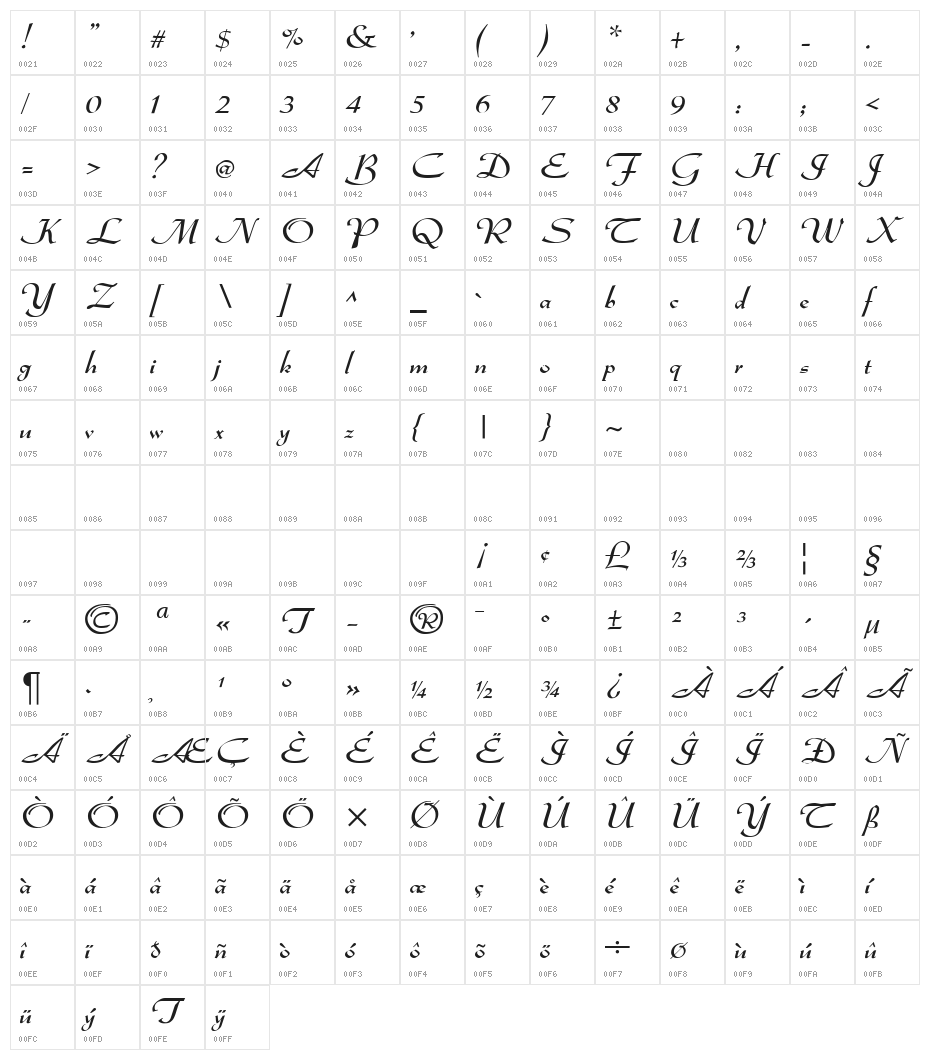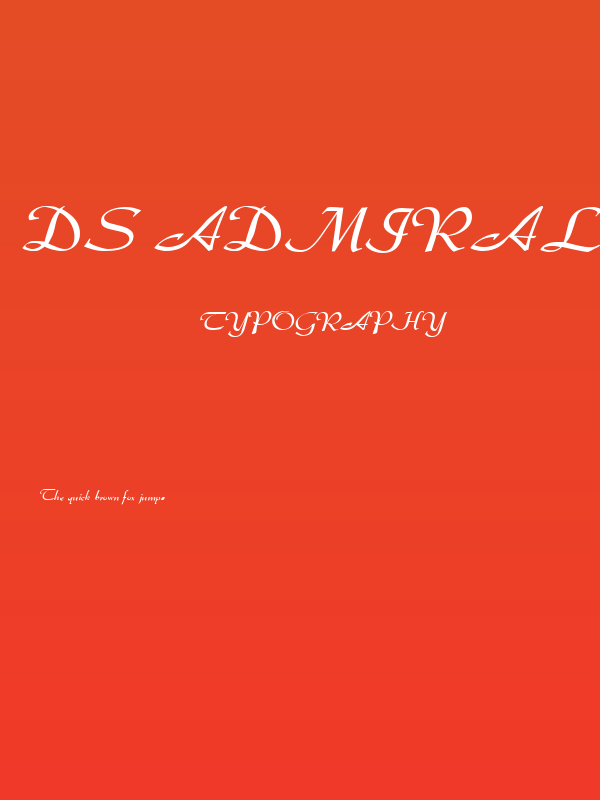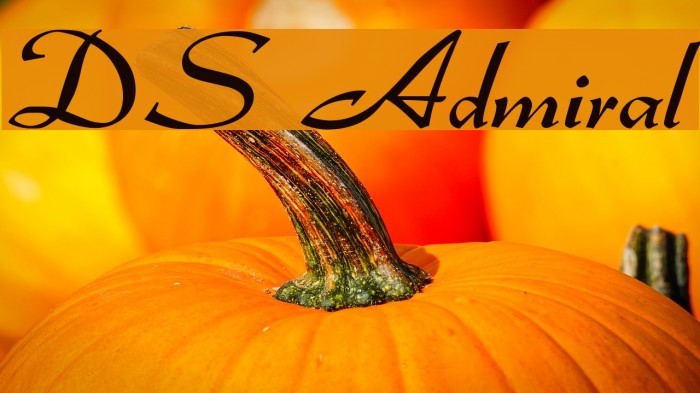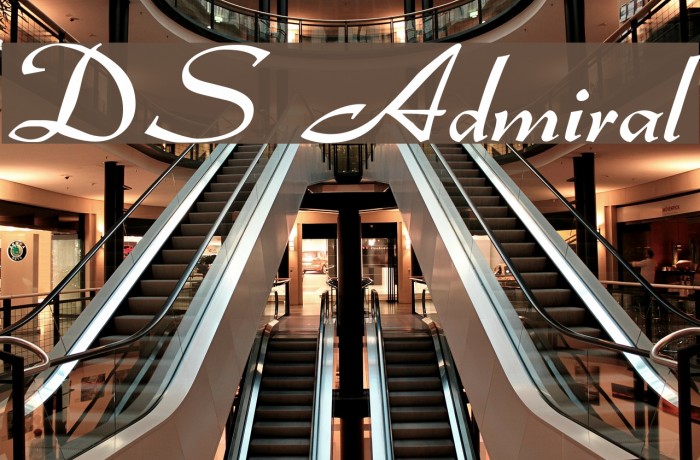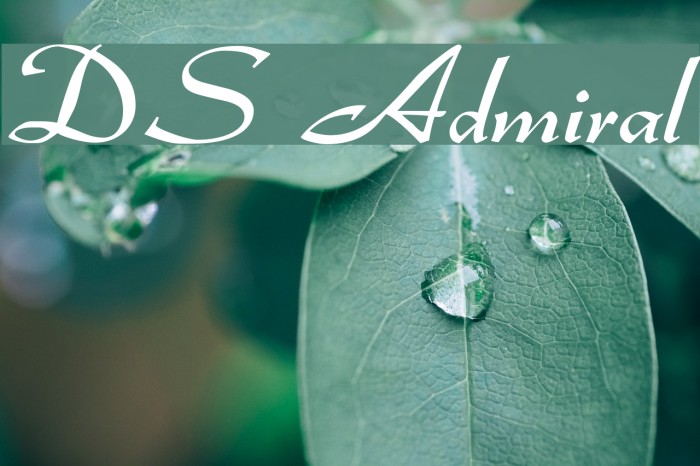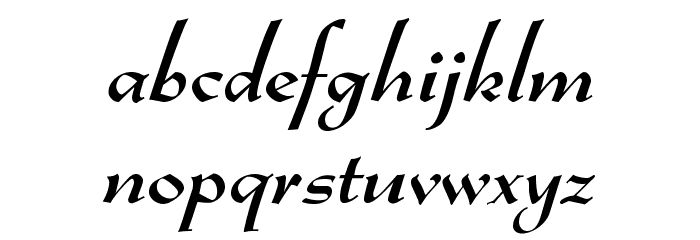
DS Admiral Font
DS Admiral Description
This elegant script font features a flowing, cursive style with a sophisticated flair. The uppercase letters are characterized by their graceful, sweeping lines and subtle flourishes, giving them a sense of movement and fluidity. The lowercase letters maintain a consistent style, with smooth curves and a slightly italicized appearance. The numerals are clear and legible, complementing the overall aesthetic. Special characters are thoughtfully designed to match the font's refined look, making it suitable for a variety of formal and decorative applications.
| Use Case | Invitations, Branding, Decorative text |
| Proposed Projects | Ideal for wedding invitations, elegant branding, formal event programs, and decorative signage. |